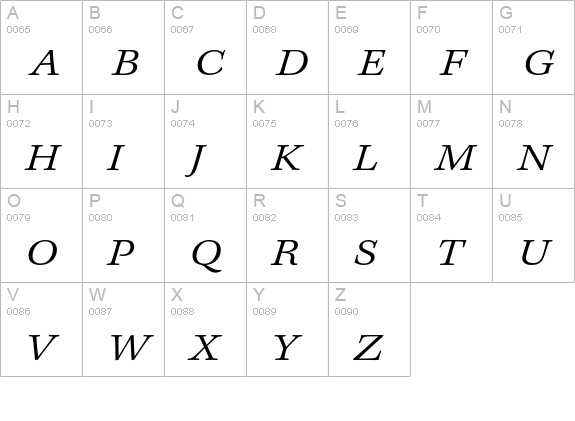
Kepler Std Light Extended Italic Caption Font Details
Kepler Std Light Extended Italic Caption is a refined, elegant, extended-width, italic variant in the Kepler typeface family \xE2\x80\x94 well suited to elegant body text, refined sub-headings, and luxury branding.
Kepler Std Light Extended Italic Caption font is a stunning and elegant typeface that is perfect for creating captivating captions and titles. Its elongated and slanted letterforms add a touch of sophistication and style to any design project. With its light weight and extended proportions, this font exudes a sense of grace and delicacy, making it ideal for adding a touch of refinement to your designs. The italic slant adds a subtle hint of movement and dynamism, making each character appear effortlessly elegant. The Kepler Std Light Extended Italic Caption font is versatile and can be used in a wide range of creative projects, including branding, advertising, packaging, and more. Its clean and legible design ensures maximum readability in both print and digital formats. One of the best things about this font is that it is freely available to download at FontsMarket.com. This means that you can easily access and use this beautiful typeface without any hassle. Whether you are a professional designer or a casual user, you can now enjoy the benefits of this exceptional font without breaking the bank. In conclusion, the Kepler Std Light Extended Italic Caption font is a visually striking and versatile typeface that will elevate your designs to new heights. Its free availability at FontsMarket.com makes it even more appealing, allowing users to access this exceptional font with ease. Incorporate this font into your projects and watch as it brings a touch of elegance and sophistication to your designs.